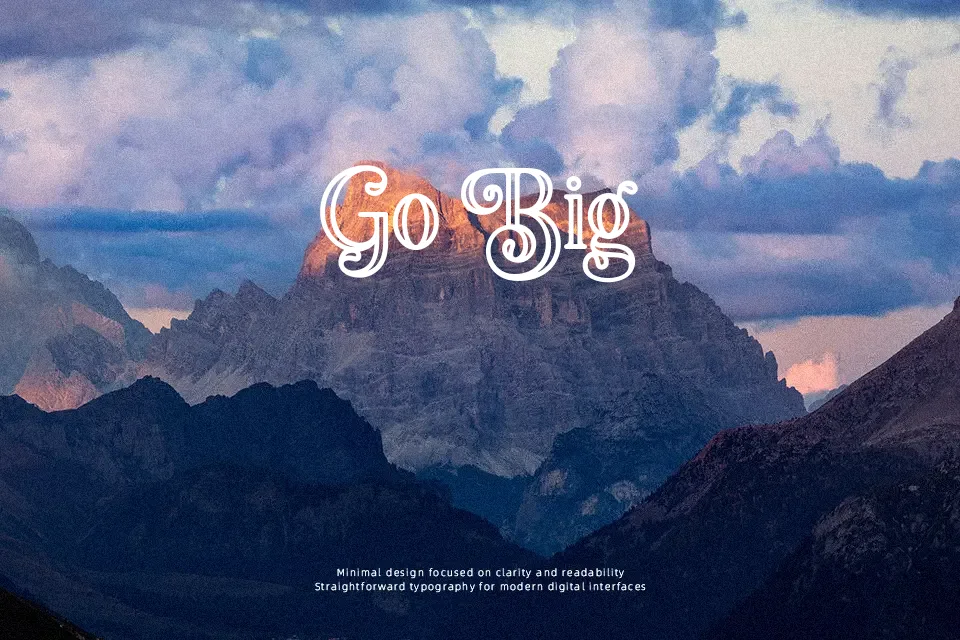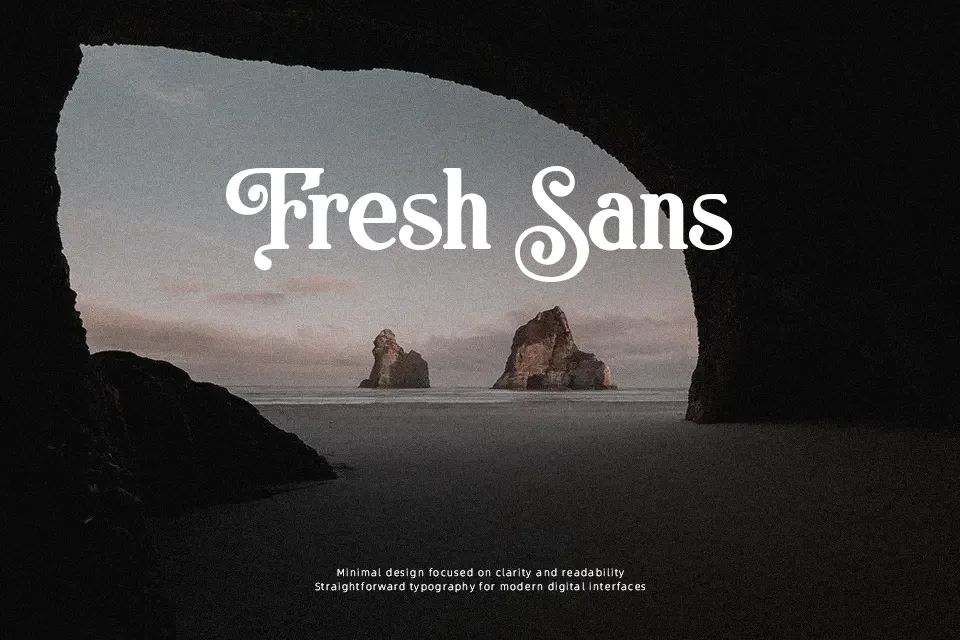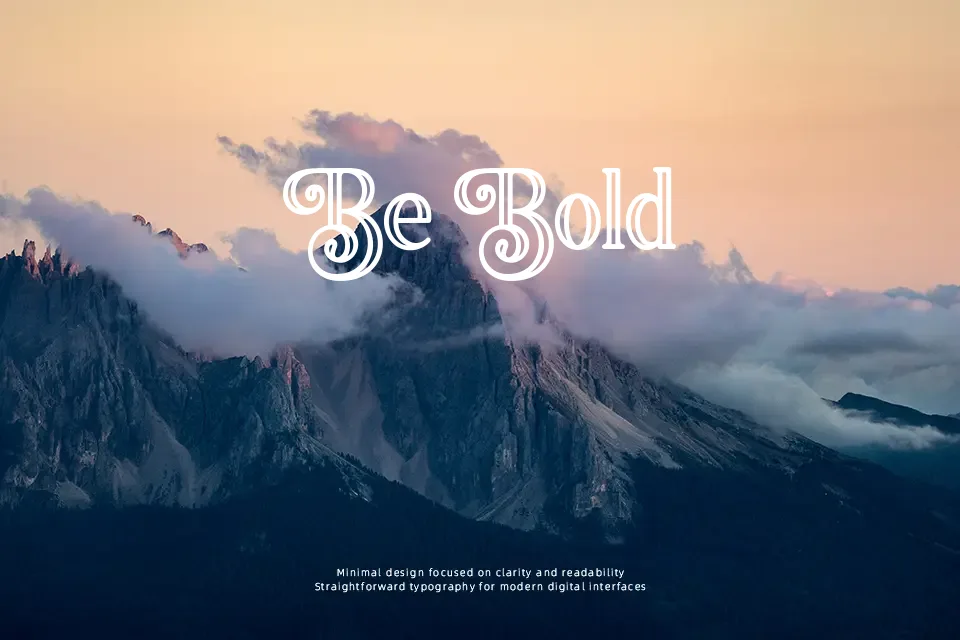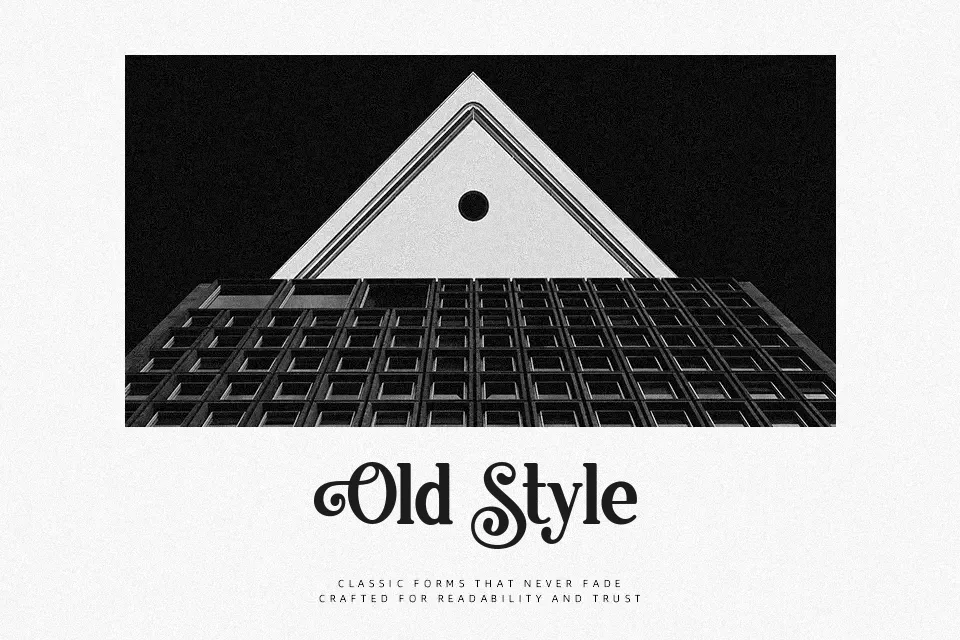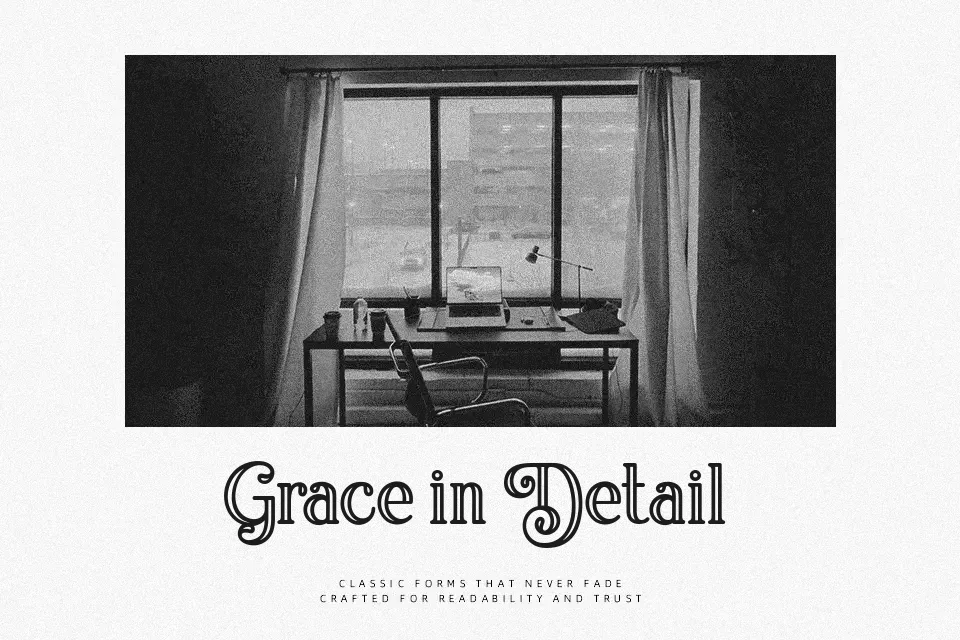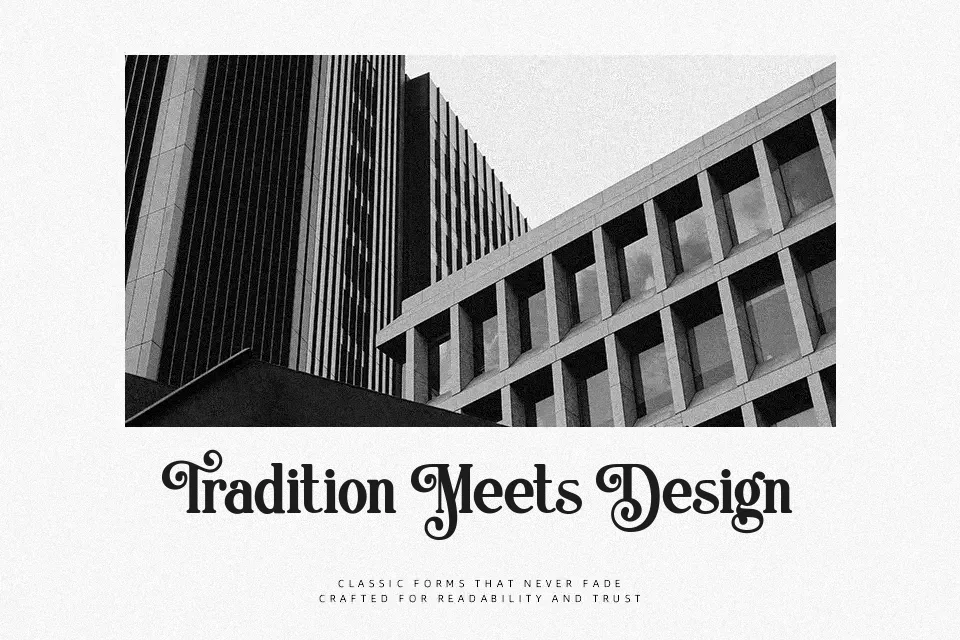
Treva del Mar Font
Distinctive swash terminals and flared serifs define the uppercase glyphs of Treva del Mar Font, creating an intricate visual texture across titles and signage. The lowercase alphabet adopts disciplined structural proportions with clear vertical stress, stabilizing overall rhythm across short phrases. Generous internal counters preserve recognition at larger display scales, making the typeface well suited for boutique product labels, event posters, and hospitality identity suites. However, delicate terminal curls blur rapidly at smaller sizes, making the letterforms ineffective for dense text columns. Maintaining loose tracking helps prevent adjacent curls from colliding in tight headline layouts.
Best For: resort branding packages, vintage cosmetic packaging, cocktail menu headlines, travel magazine covers
Not Ideal For: continuous book paragraphs, mobile app interface body, technical spreadsheet data, compact legal disclosures
Perfect for branding, headline, and logo, with a creative and decorative style.